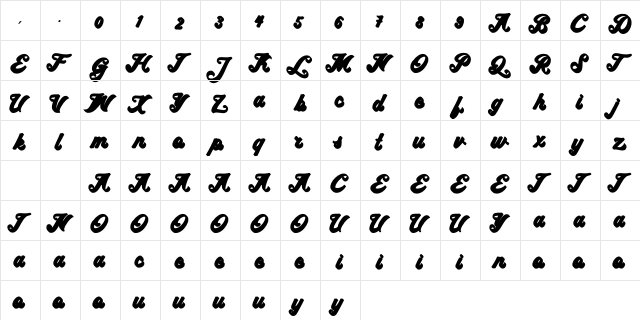
Ricota Shadow
| Foundry | Hans Co. |
| Designer | Burhan Afif |
Design Context for Ricota Typeface
Ricota is built around its visual character rather than neutral utility — its distinctive forms are designed to make an impression at display sizes.